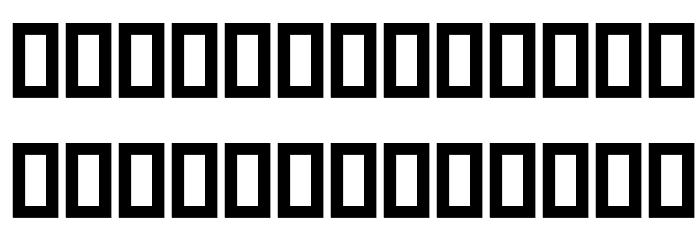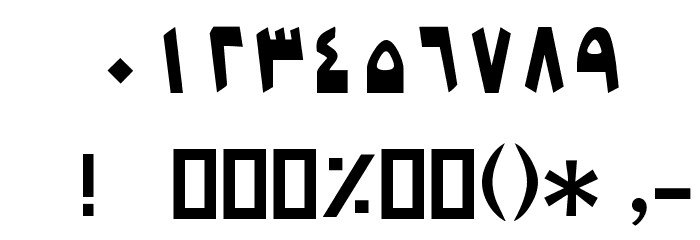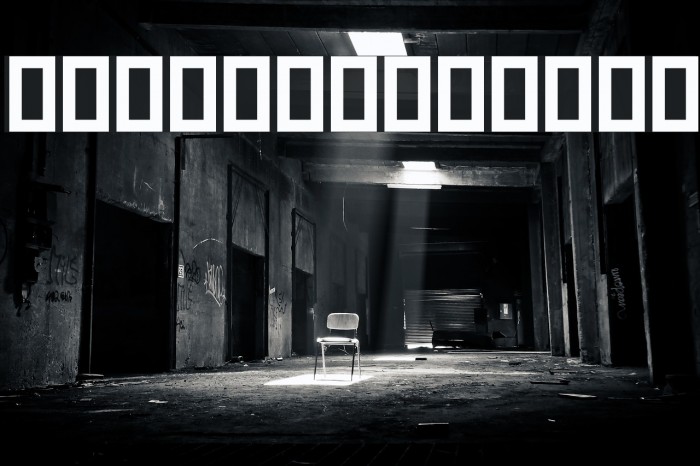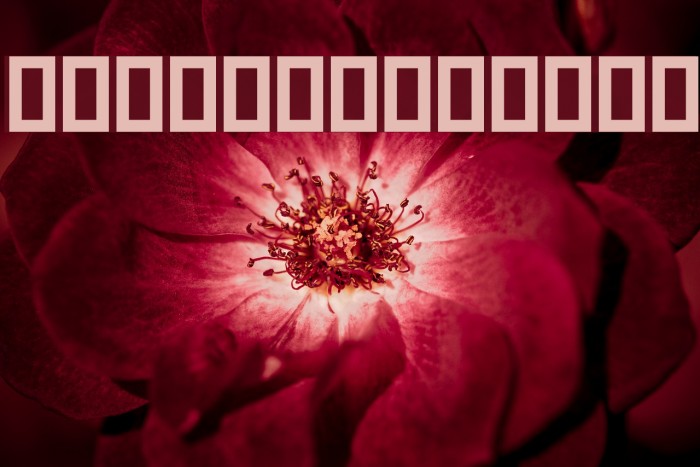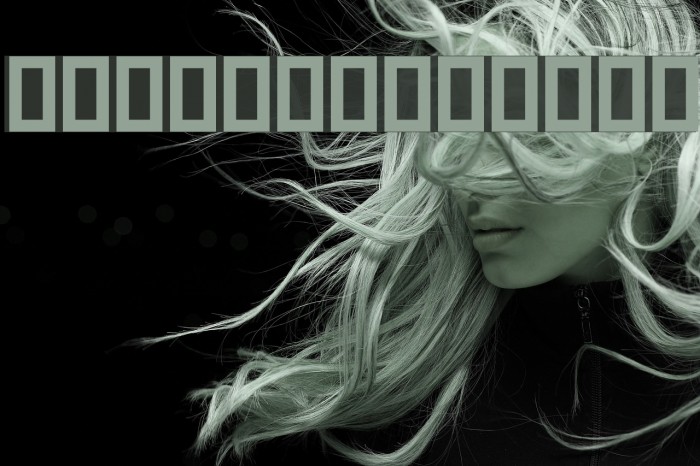
Badakhsh Black Font
This font features a bold and geometric style with a distinct blocky appearance. The characters are constructed with thick, uniform strokes, giving them a strong and impactful presence. The angular design of the letters creates a modern and edgy look, making it suitable for attention-grabbing headlines or titles. The numbers and special characters maintain the same boldness and geometric form, ensuring consistency across all elements. The overall design is clean and straightforward, with a focus on clarity and readability.
A bold, geometric font with a strong, blocky appearance.
- Proposed Projects: Ideal for posters, branding, and logo design where a modern and bold statement is needed.